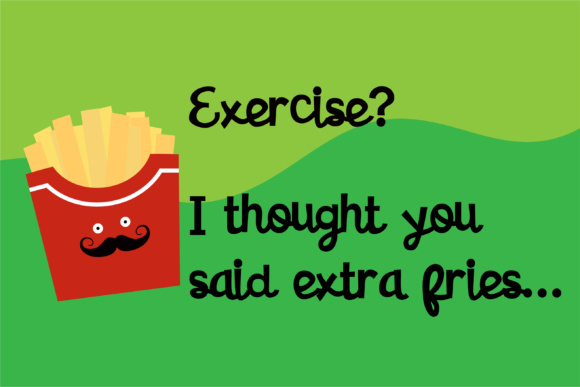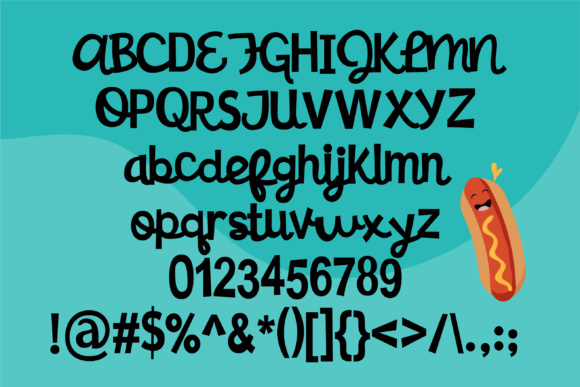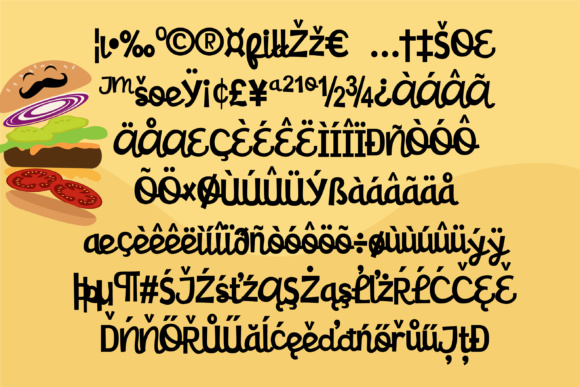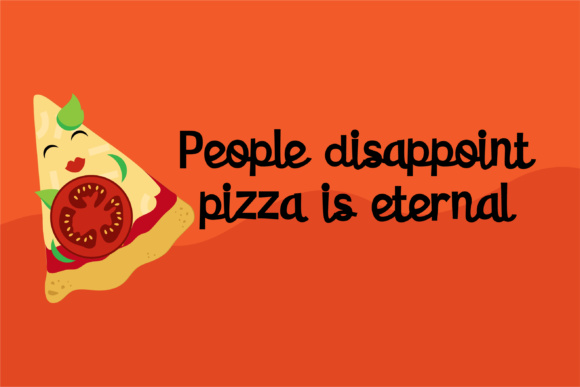
The Carbohydrate Font: A Whimsical Cursive Delight for Designers
I’ll never forget the design project that led me to discover the Carbohydrate font. I was working on a branding project for a trendy new cafe, and I needed a font that would capture the fun, playful vibe of their brand. I spent hours scouring font websites, but nothing seemed quite right – until I stumbled upon Carbohydrate. This whimsical cursive font has fun and bold quasi-script lettering that perfectly embodied the cafe’s personality. In this article, I’ll share my experience with Carbohydrate, including what I love about it, some quirks to watch out for, and how to get the most out of this beautiful font.
- ✨ Unique and playful style: Carbohydrate has a one-of-a-kind look that’s sure to make your designs stand out.
- ✅ Ease of use: This font is easy to read and works well for both headings and body text.
- 💫 OpenType features: Carbohydrate comes with a range of OpenType features, including glyphs and stylistic alternates, that allow for endless customization.
While Carbohydrate is an amazing font, there are a few things to keep in mind:
- ⚠️ Legibility at small sizes: Like many script fonts, Carbohydrate can be tricky to read at very small sizes. It’s best used at larger sizes, such as headings or titles.
- 🤔 Limited use in formal designs: Due to its playful nature, Carbohydrate may not be the best fit for formal or professional designs, such as resumes or business reports.
The Backstory Behind Carbohydrate
Carbohydrate was designed by a talented type designer who wanted to create a font that captured the fun, playful spirit of food and cooking. The designer drew inspiration from classic script fonts, but added a modern twist with bold, exaggerated lettering. The result is a font that’s both elegant and whimsical – perfect for designs that need a touch of personality.
Q: What is the best use for Carbohydrate font?
A: Carbohydrate is perfect for designs that need a playful, whimsical touch, such as food blogs, restaurant branding, and social media graphics.
Q: Is Carbohydrate suitable for body text?
A: While Carbohydrate is easy to read, it’s best used for headings or titles. For body text, a clearer font may be more suitable.